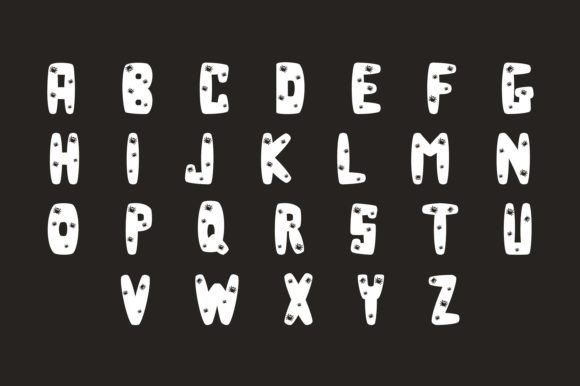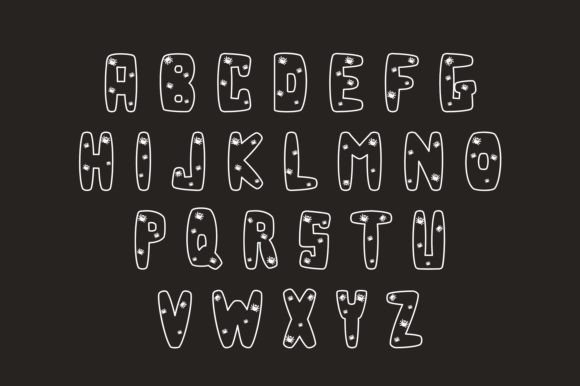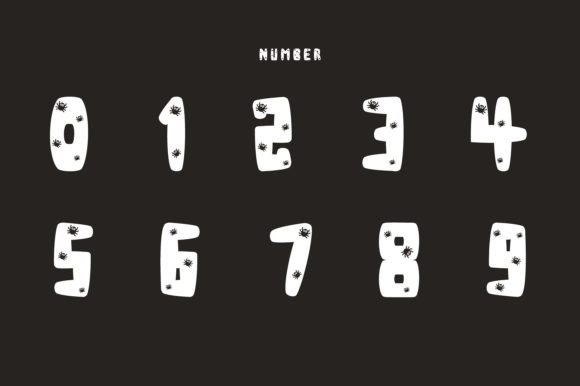
Introduction to Little Spider Font
As a designer, there’s nothing quite like the rush of creativity that comes with brainstorming a new project. You’re sipping your morning coffee, scrolling through social media, and suddenly, an idea strikes. For many of us, Halloween is a time of year that sparks endless inspiration, from spooky decorations to eerie illustrations. But have you ever found the perfect font to bring your creative vision to life?
Enter the Little Spider Font, a playful and authentic decorative display font that’s sure to cast a spell on your designs. With its high-quality, transparent background, this design resource is a must-have for any creative project. Whether you’re working on a free download, a logo, or an ad, the Little Spider Font adds a touch of whimsy and personality that’s hard to resist.
As a valuable addition to any designer’s toolkit, the Little Spider Font offers endless possibilities for branding, invitations, greeting cards, and more. So why not give it a try and see what kind of magic you can create with this spook-tacular font?
Key Features of Little Spider Font
- High-quality design: The Little Spider Font is a unique and creative design resource, perfect for various projects.
- Unique characteristics: The Little Spider Font features a distinctive, whimsical design that adds a touch of personality to any creative project.
Honest Review: Little Spider Font
I recently stumbled upon the Little Spider Font while searching for a unique design resource. This free download has caught my attention with its intricate and whimsical design. The font is ideal for creative projects that require a touch of magic, and its high quality is noticeable even at larger font sizes.
What works well with the Little Spider Font is its versatility. The font can be used for a variety of applications, from children’s books to advertising materials. I also appreciate the fact that the font comes with a transparent background, making it easy to use in various design scenarios.
- ✨ Unique and intricate design
- ✨ High quality and suitable for larger font sizes
- ✨ Versatile and can be used in various design applications
- ✨ Includes a transparent background
However, there are some limitations to consider. The font may not be suitable for all types of projects, particularly those that require a more serious or professional tone. Additionally, the font may not be as readable in certain font sizes or styles.
Overall, I’m impressed with the Little Spider Font and its potential to elevate creative projects. While it may have some limitations, the font’s unique design and high quality make it a valuable addition to any design resource library.
The Little Spider Font is ideal for a variety of creative projects, including social media graphics, presentations, logos, business cards, brochures, and more. Its unique design and transparent background make it a versatile and high-quality design resource.
Is the Little Spider Font suitable for high-quality design projects?
Yes, the Little Spider Font is designed to be a high-quality design resource. It features a unique and creative design style that’s perfect for a wide range of projects, from branding and advertising to digital products and print materials. With its clear and legible characters, the Little Spider Font is sure to make your design project stand out.